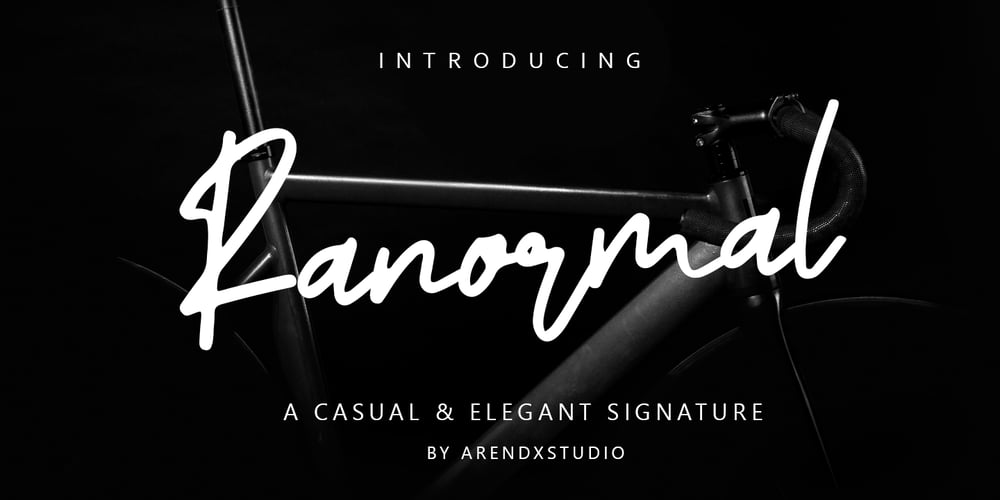
Ranormal Font Family was designed by Asep Rendi and published by Arendxstudio. Ranormal contains 1 styles and family package options. Ranormal is made as elegant as possible for the use of your design project. It offers a variety of design project possibilities, including logos & amps, branding, wedding designs, social media posts, advertisements, product designs, magazines and more. There it is! I really hope you enjoy it – comments & likes are always welcome and accepted. More importantly, don’t hesitate to send a message if you have a problem or question. Now just read this, go there and make it happen ๐